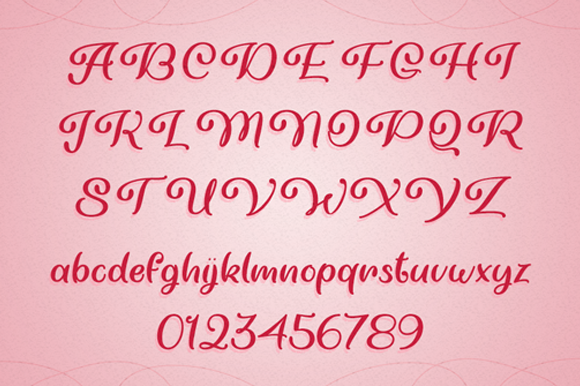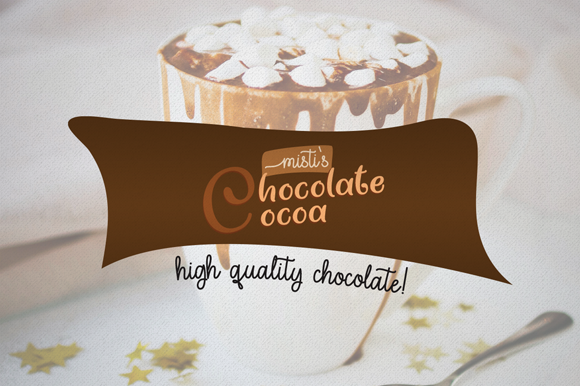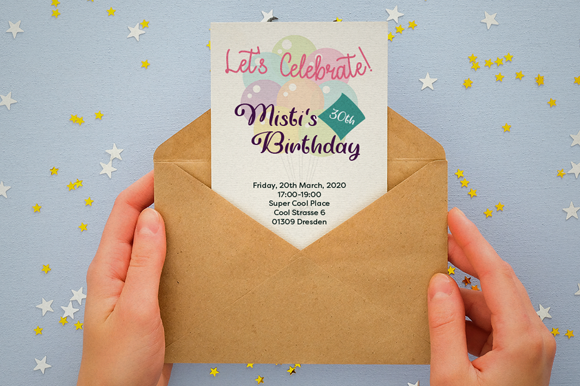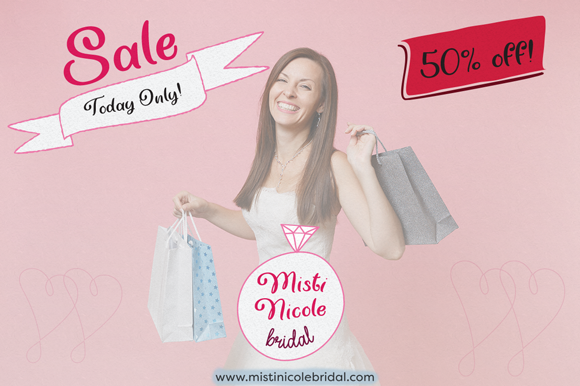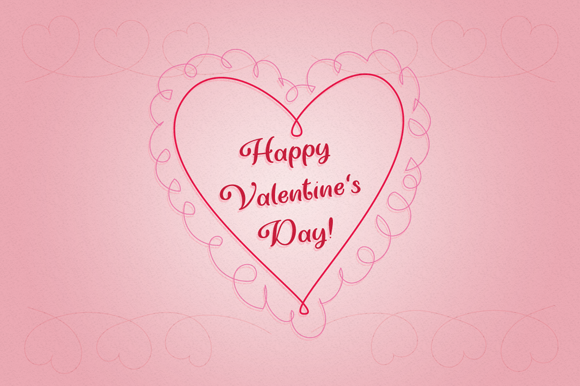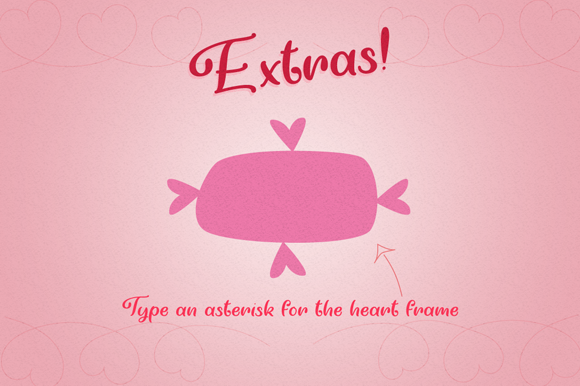
Very You Font
About Very You Font
Very You is hand crafted font full of personality and flair! It is great for invitations, logos, product labels, advertisements, graphics and so much more! Perfect for valentine’s day and beyond!